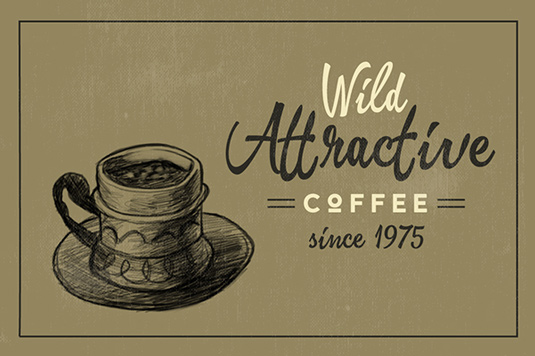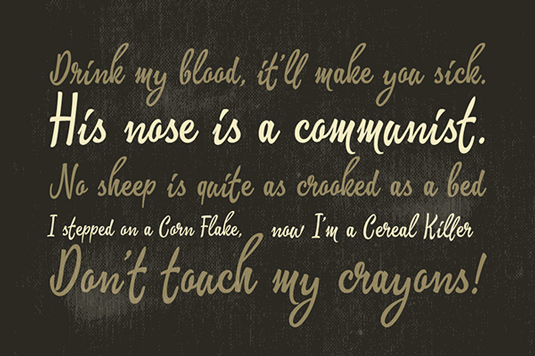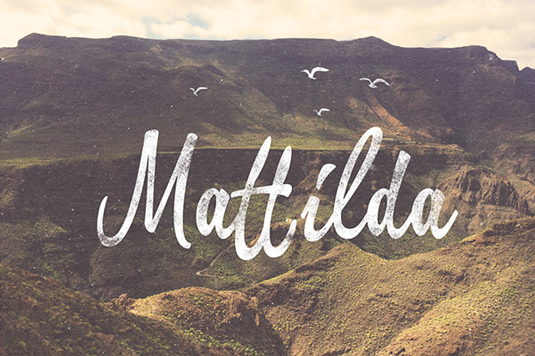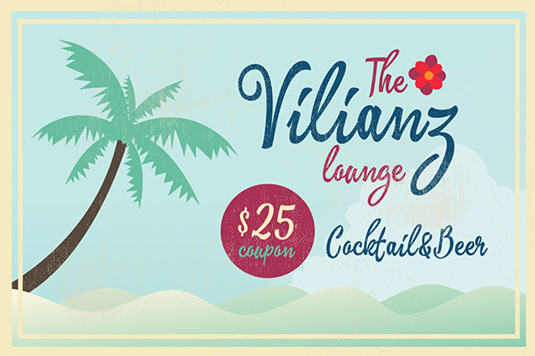
Font of the day: Mattilda
Every day we showcase the best fonts on the web. Today it's Mattilda from Artimasa Studio.
Mattilda from Artimasa Studio
Today's typeface of choice, Mattilda, was created by the team at Artimasa Studio. "Mattilda was inspired by freestyle brush lettering, which is great to use in urban and free design styles," the team comment on Behance. "It's bold, fun and attractive. You can make your own brush-lettering logo, wedding invitation, greeting cards, etc."